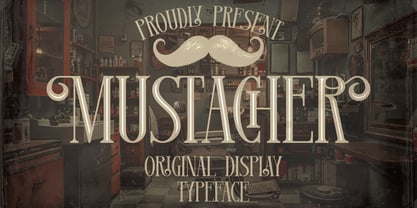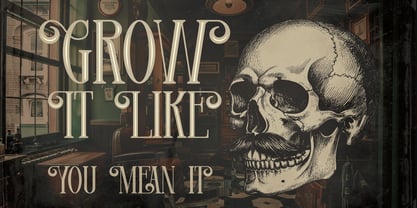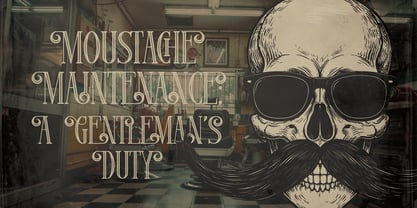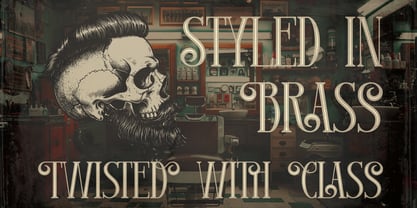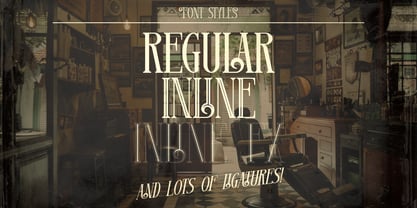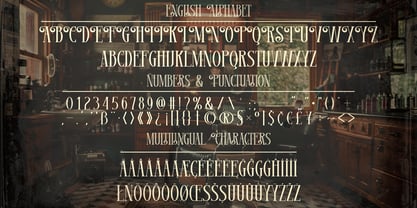
Mustacher
by Vozzy
The Mustacher Font Family was designed by Oleg Voznyy and published by Vozzy. Mustacher contains 3 styles and family package options. More about this family
Introducing the captivating font "Mustacher," designed specifically for headlines and accent inscriptions that demand attention. This unique typeface features a diverse range of additional characters, punctuation marks, and multilingual options, making it versatile for various design needs. With an extensive selection of standard ligatures, ensure your software supports this OpenType feature to fully utilize its capabilities. "Mustacher" is the perfect choice to enhance your stunning designs, adding a distinctive flair that stands out in any project.
Designers: Oleg Voznyy
Foundry: Vozzy